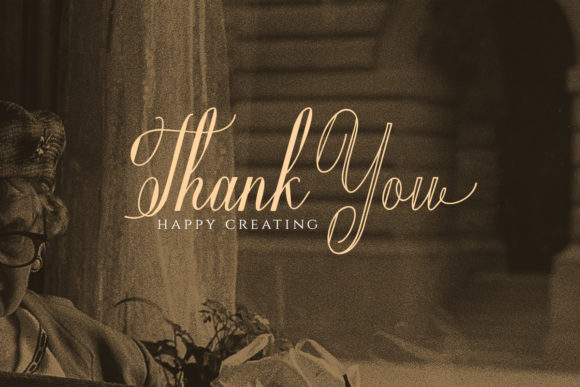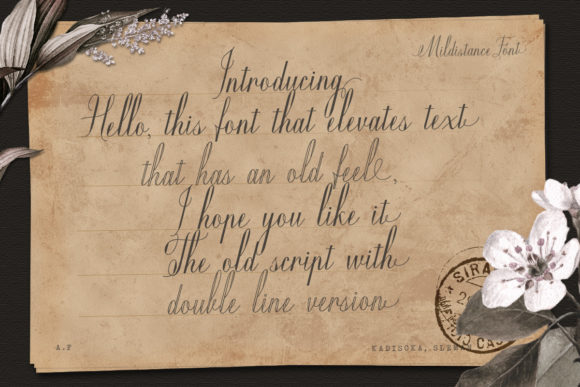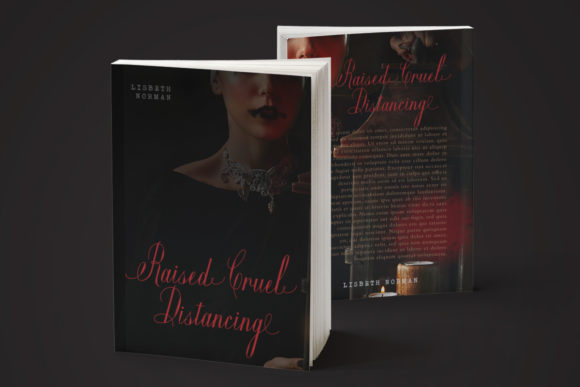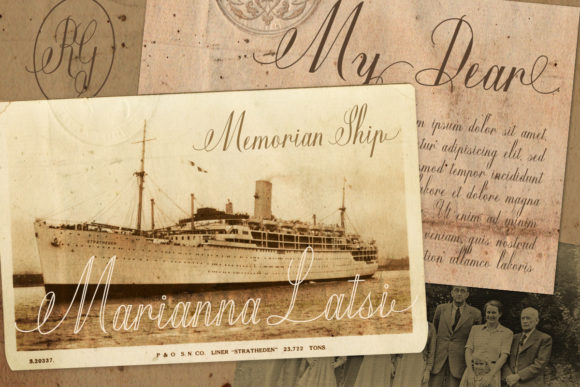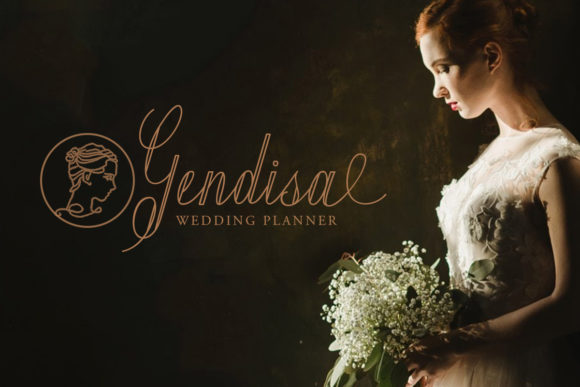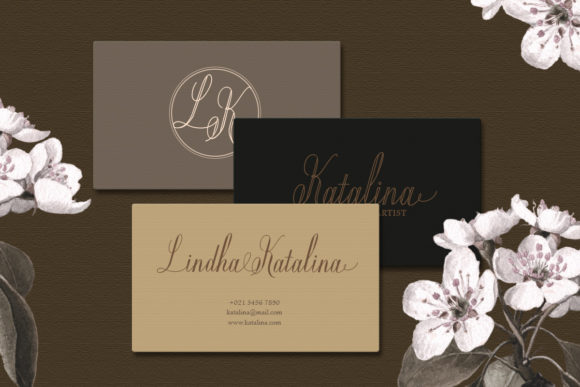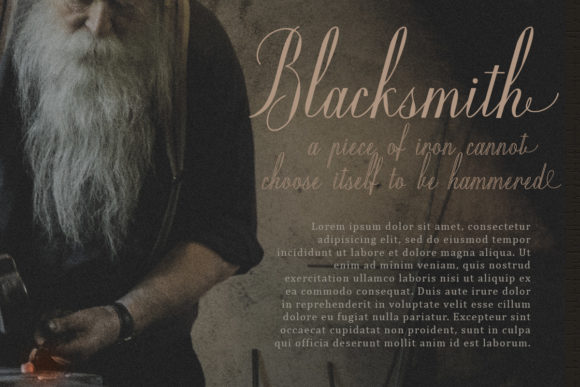
About Mildistance Font
Introducing Mildistance: A Beautiful Handwritten Font with Nostalgic Vibes
Say hello to Mildistance, a font that exudes beauty and nostalgia with its stunning handwritten style. This font is the perfect blend of old-school charm and modern elegance, making it suitable for a wide range of projects.
With its nostalgic vibe, Mildistance is the ideal choice for designs that seek to evoke feelings of the past. Whether you’re working on vintage-themed projects, retro-inspired designs, or anything that requires a touch of nostalgia, Mildistance will deliver the perfect dose of old-school charm.
Beyond its old-school theme appeal, Mildistance is a versatile font that can be used for a myriad of formal projects. It adds a touch of elegance and sophistication to invitations, making them stand out and captivating recipients. The font’s unique charm enhances labels, giving products a distinctive and memorable appearance.
For logos, Mildistance provides a perfect balance of vintage flair and modern elegance, making your brand identity both timeless and appealing. Its nostalgic vibes add character to magazines, book covers, and editorial designs, setting a captivating tone for readers.
Mildistance’s beautiful handwritten style brings a touch of authenticity to your projects, making them feel more personal and engaging. It’s a font that speaks to the heart and soul, leaving a lasting impression on anyone who encounters it.
So, if you’re looking to infuse your designs with a sense of nostalgia and elegance, Mildistance is the font to rely on. Embrace its beauty and versatility, and watch as it elevates your projects to new heights. With Mildistance as your creative companion, you’ll be able to craft designs that evoke emotions and leave a lasting impact on your audience.